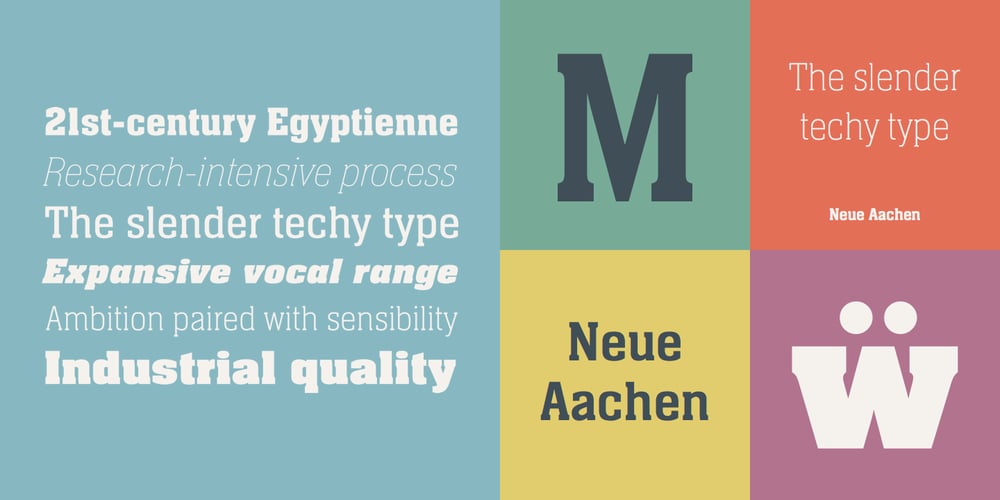
Neue Aachen Font Family was designed by Colin Brignall, Jim Wasco, Alan Meeks, Monotype Design Studio and published by ITC. Neue Aachen contains 18 styles and family package options. Impressed by the quality of the Aachen typeface that was originally designed for Letraset in 1969 and extended to include Aachen Medium in 1977, Jim Wasco of Monotype Imaging has extended this robust display design to create an entire family. Derived from the serif-accented Egyptienne fonts dating to the early 20th century, Aachen has serifs that are very solid but considerably shorter than those of its precursor. The incorporated geometrical elements, such as right angles and straight lines, provide the slender letters of Aachen with a slightly technological, stencil-like quality. Despite this, the effect of Aachen is by no means static; its dynamism means that this typeface, originally designed for use in headlines, has come to be used with particular frequency in sport- and fitness-related contexts. Jim Wasco, for many years a type designer at Monotype Imaging, recognized the potential of Aachen and decided to extend the typeface to create an entire typeface family. He appropriated the existing Aachen Bold in unchanged form and first created the less heavy cuts, Thin and Regular. Wasco admits that he found designing the forms for Thin a particular challenge. It took him several attempts before he was able to achieve consistency within the glyphs for Thin and, at the same time, retain sufficient affinity with the original Aachen Bold. But he finally managed to adapt the short serifs and the condensed and slightly geometrical quality of the letters to the needs of Thin. The weights Light, Book, Medium and Semibold were generated by means of interpolation. Supplemented by Extralight and Extrabold, the new Neue Aachen can now boast a total of nine different weights. Wasco initially relied on his predilection for genuine cursives in his designs for the Italic cuts. But it became apparent with these first trial runs that the soft curves of cursives did not suit Aachen and led to the loss of too much of its original character. Wasco thus decided to compromise by using both inclined and cursive letters. Neue Aachen Italic is somewhat narrower than its upright counterparts; the lower case ‘a’ has a closed form while the ‘f’ has been given a descender, but the letters have otherwise not been given additional adornments. The range of glyphs available for Neue Aachen has been significantly extended, so that the typeface can now be used to set texts not only in Western but also Central European languages. Wasco has also added a double-counter lowercase ‘g’ while relying on the availability of alternative letters in the format sets for the enhancement of the legibility of Neue Aachen when used to set texts. The seven new weights and completely new Italic variants have enormously increased the potential applications of Aachen and the range of creative options for the designer. While the Bold weights have proved their worth as display fonts, the new Book and Regular cuts are ideal for setting text. And the subtlety of Ultra Light will provide your projects with a quite unique flair. The new possibilities and opportunities in terms of design and applications that Neue Aachen offers you are not restricted to print production; you can also create internet pages thanks to its availability as a web font.